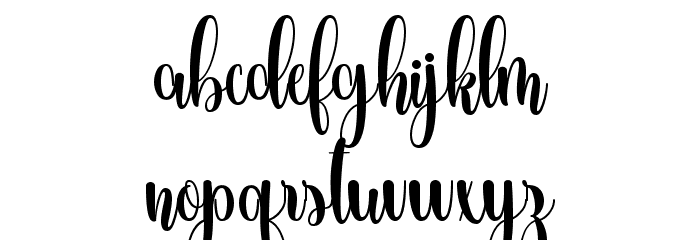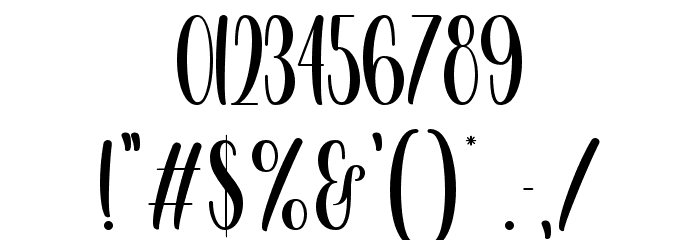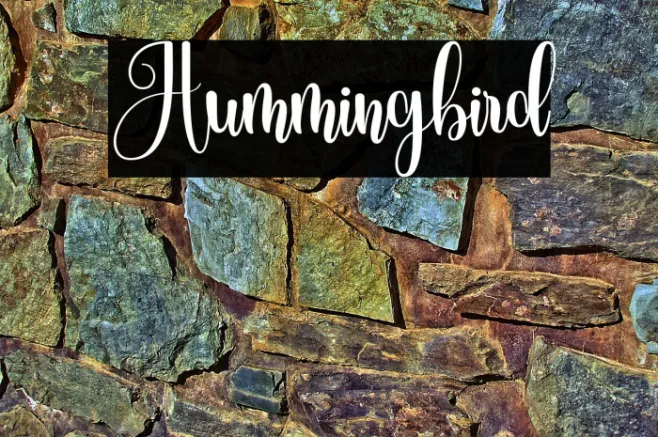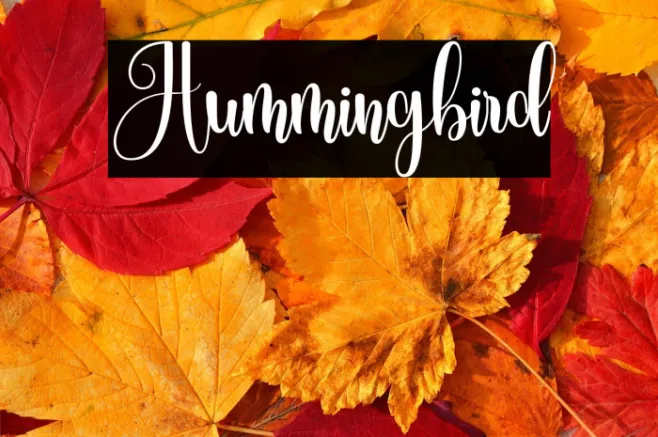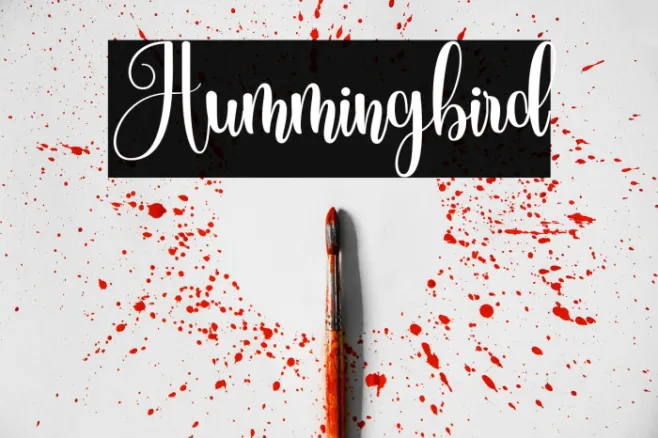
Hummingbird Font
This font features an elegant and flowing script style, characterized by its decorative swirls and loops. The uppercase letters are particularly ornate, with intricate curves that give a sense of movement and grace. The lowercase letters maintain a consistent style, with a slightly bolder appearance that enhances readability. The numerals are clear and distinct, while the special characters blend seamlessly with the overall aesthetic. This font exudes a sense of sophistication and charm, making it ideal for projects that require a touch of elegance.
An elegant script font with decorative swirls and loops.
- Font: Hummingbird
- Proposed Projects: Ideal for wedding invitations, greeting cards, branding, and logo design.